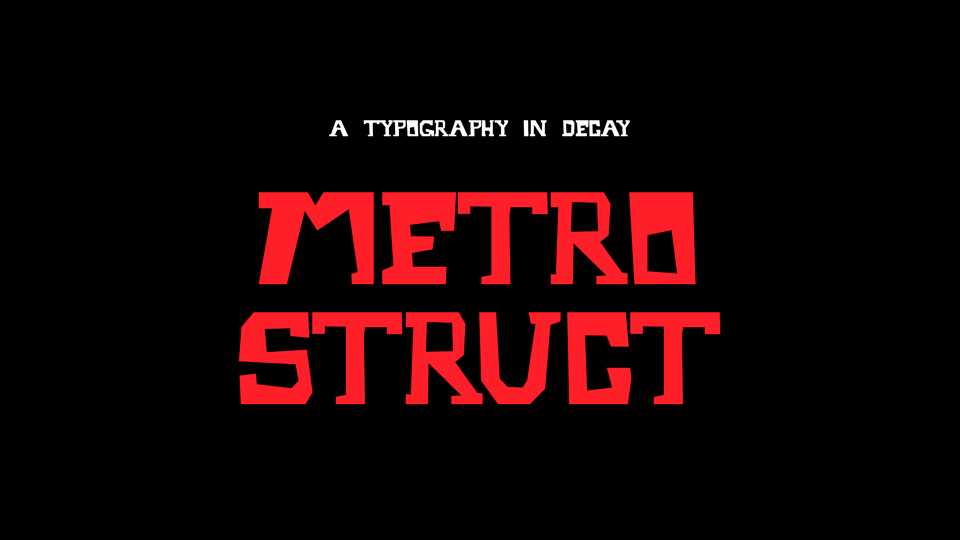
Download Metrostruct font, an experimental bold display typeface. Metrostruct is intended to be big, heavy and stupid while looking like a handdrawn slab serif face.
Designer: Matt Perkins